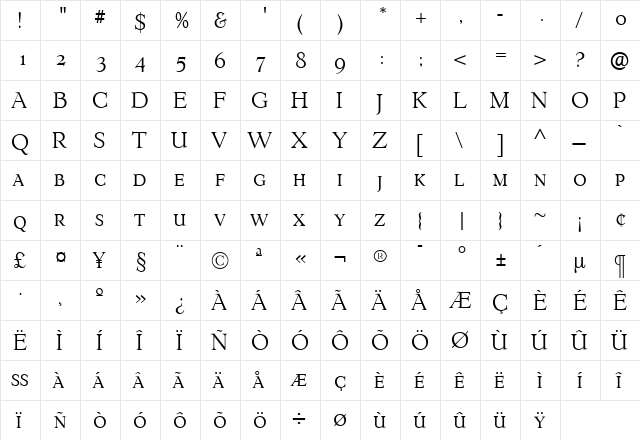
ErasmusLightExpert Regular
Design Context for ErasmusLightExpert Typeface
ErasmusLightExpert offers clean, dependable letterforms without strong stylistic allegiance, making it a practical choice for designers who need flexibility. Its slender proportions lend an understated elegance to any composition.